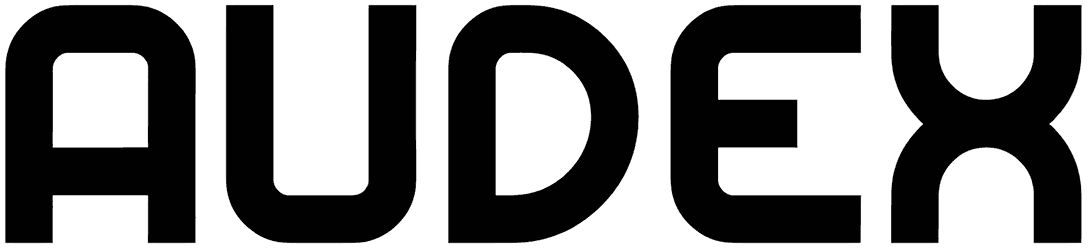
Todays Font
With a simple yet expertly designed design, Todays will be an outstanding addition to your toolbox. This sans serif font has innovative typefaces that combine modern aesthetics with classic appeal, and its two weights can be used to make a bold impact in any design project.
Whether you want to design a unique poster or make a bold statement, Todays can provide endless possibilities and help you create stunning designs in no time.
Designed by: Kong Font